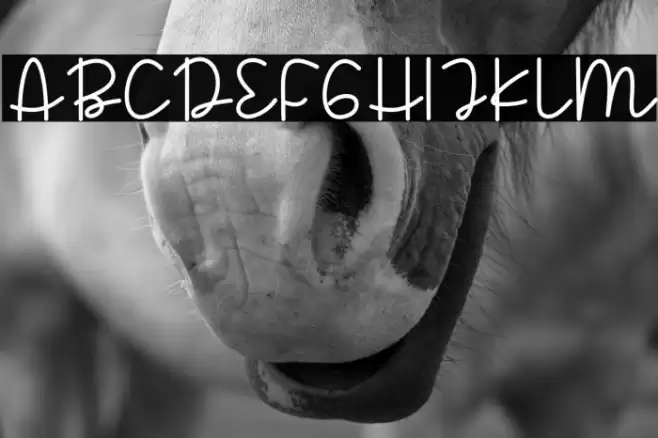
Replay Time Font
Replay Time Description
This font features a playful and casual handwritten style, characterized by smooth, flowing lines and a consistent stroke width. The uppercase letters maintain a uniform height, while the lowercase letters exhibit a slight slant, adding to the informal appearance. The numerals are rounded and match the overall aesthetic, ensuring readability. Special characters are integrated seamlessly, maintaining the font's cohesive look. This font's approachable and friendly design makes it suitable for a variety of creative applications.
A playful, casual handwritten font with smooth, flowing lines from Uncategorized fonts.
- Font: Replay Time
- Proposed Projects: Ideal for greeting cards, invitations, personal branding, and social media graphics.
- Overall Style: Casual, Playful
- Use Case: Headlines, Logos, Informal Text